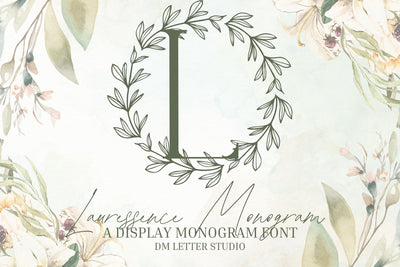
Lauressence Monogram
Lauressence Monogram – Elegant Script & Floral Monogram Font
Lauressence Monogram is a luxurious script monogram font that blends graceful calligraphy with delicate floral accents. Each uppercase letter is thoughtfully embellished, making this font ideal for upscale branding, wedding stationery, personalized packaging, and custom logo design. With a flowing, romantic feel and botanical beauty, Lauressence brings sophistication to every monogram.
Floral Script Letterforms: Each capital letter includes hand-drawn botanical flourishes for an ornate yet modern look.
Romantic & Stylish Feel: A soft, fluid script with natural floral charm for timeless impact.